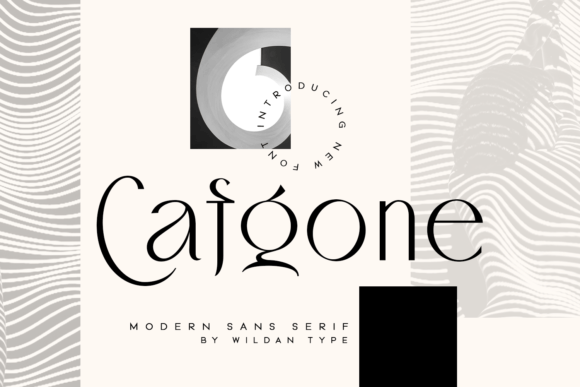
Discover the Perfect Blend of Elegance and Sophistication
As a designer, have you ever been stuck on a project, searching for that elusive font that will elevate your creation from good to extraordinary? You know the moment – it’s when the perfect combination of style and functionality comes together, and your design is transformed into a masterpiece. For many of us, this moment is what drives us to keep pushing the boundaries of creativity.
Enter the Cafgone Font, a modern and elegant sans serif font that’s been specially crafted for high-end branding, logo designs, product packaging, invitation designs, and much more. With its clean lines and subtle contrast, Cafgone Font is the perfect addition to any project seeking a touch of luxury and class.
Whether you’re a seasoned pro or a rising star, the Cafgone Font is a valuable asset in your design toolkit. Its versatility and sophistication make it an ideal choice for designers who want to take their work to the next level.
Cafgone Font Key Features
- Font Family: Cafgone Font is a sans-serif font family designed for modern and sleek designs.
- Unique Characteristics: Cafgone Font features a unique blend of geometric and organic elements, resulting in a distinctive and modern aesthetic.
Cafgone Font Review
First off, I want to say that I was excited to dive into the Cafgone font. When I first saw the demos, I thought it was going to be a game-changer for my designs. And in some ways, it really is! ✨ The font has a beautiful, modern aesthetic that’s perfect for a variety of projects. I love how it works well for both headings and body text, and it’s especially great for digital designs where you need something clean and easy to read.
- ✨ Versatile: The font is super versatile and works well for a wide range of projects.
- ✨ Easy to read: The font is highly legible, making it perfect for digital designs.
- ✨ Modern aesthetic: The font has a beautiful, modern aesthetic that’s perfect for trendy designs.
- ⚠️ Limited language support: Unfortunately, the font doesn’t support a wide range of languages, which could be a problem for global designs.
- ⚠️ Limited font sizes: While the font looks great at standard font sizes, it can get a bit messy at larger sizes.
Overall, I think the Cafgone font is a solid choice for designers who need a modern, easy-to-read font for their digital designs. Just be aware of its limitations, and you’ll be golden!
Tips for Getting the Most Out of Cafgone Font
Montserrat Font is a sans-serif typeface designed by Julieta Ulanovsky. It’s ideal for use in urban and industrial environments, such as city guides, maps, and advertisements.
Compared to Cafgone Font, Montserrat Font has a more geometric and condensed feel, making it perfect for use in narrow columns or small spaces. It’s also highly customizable, with many styles and weights available.